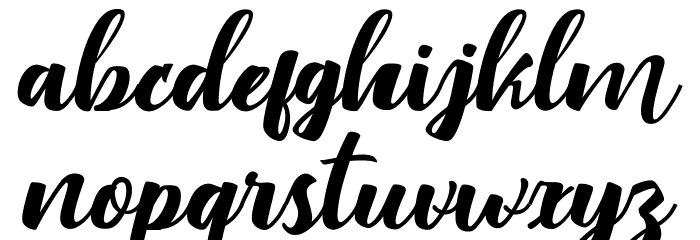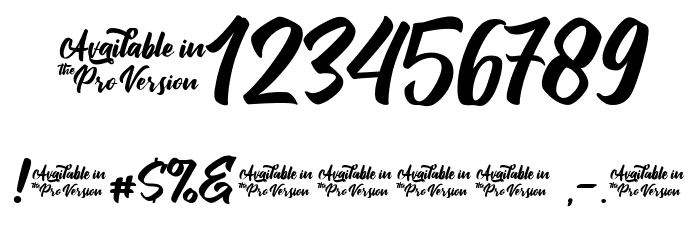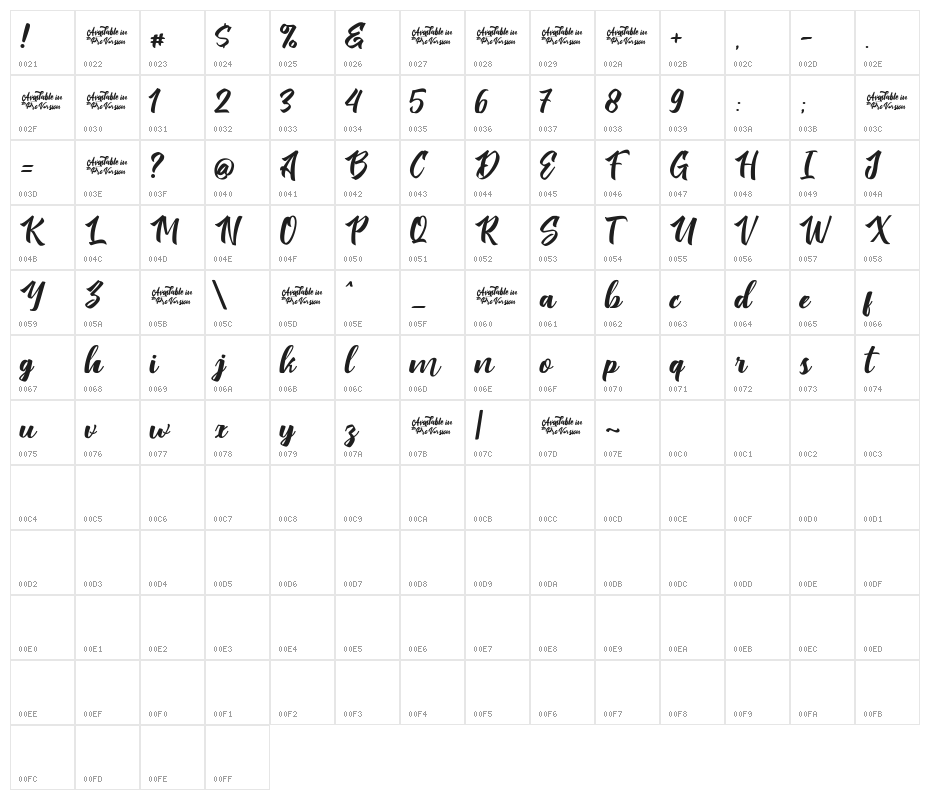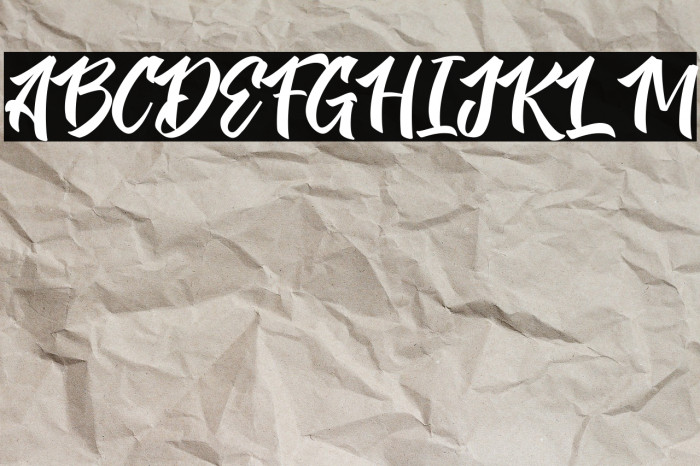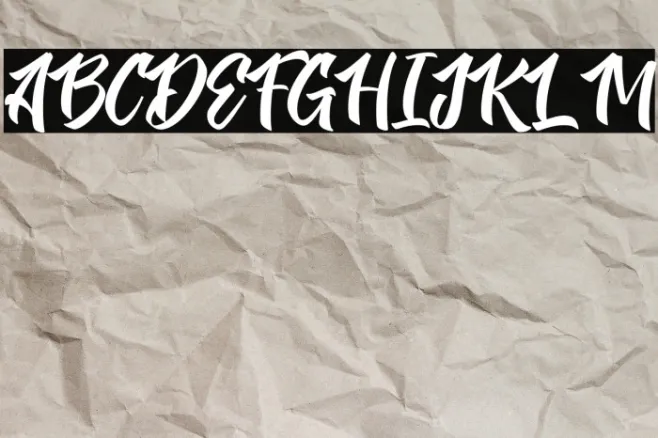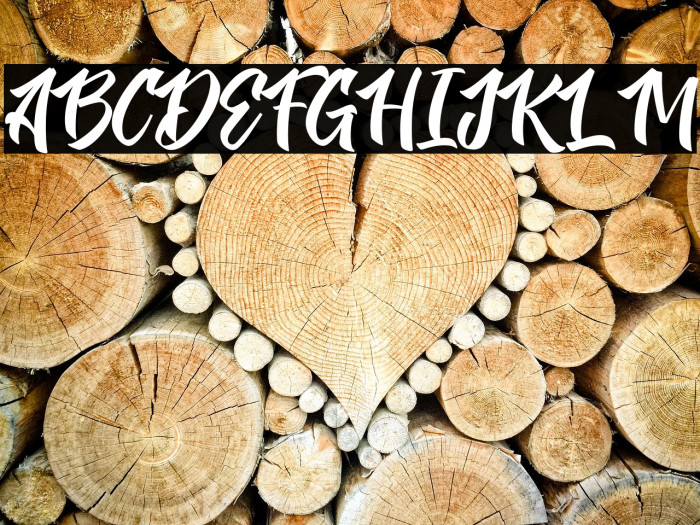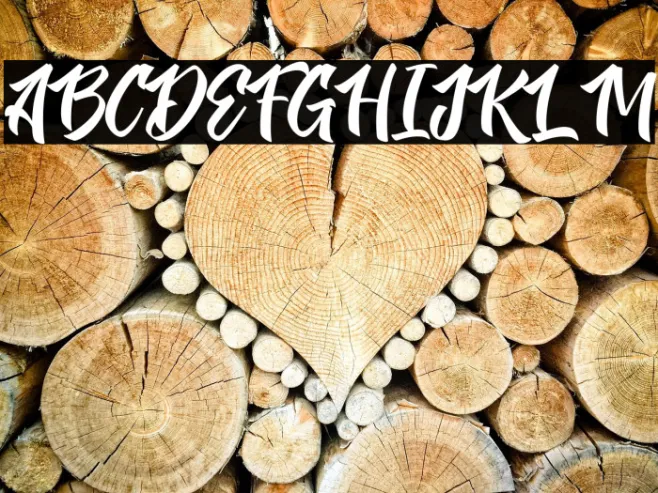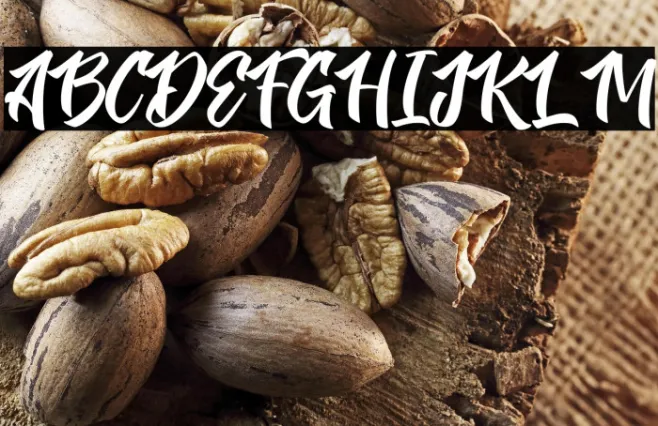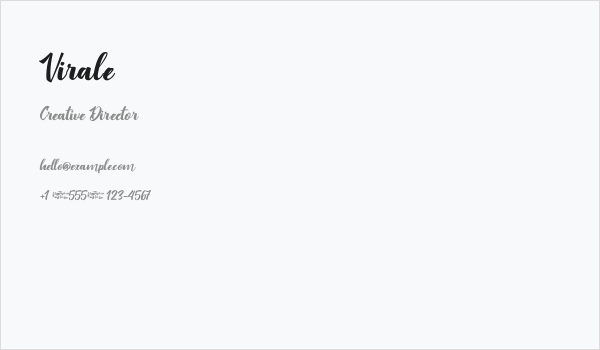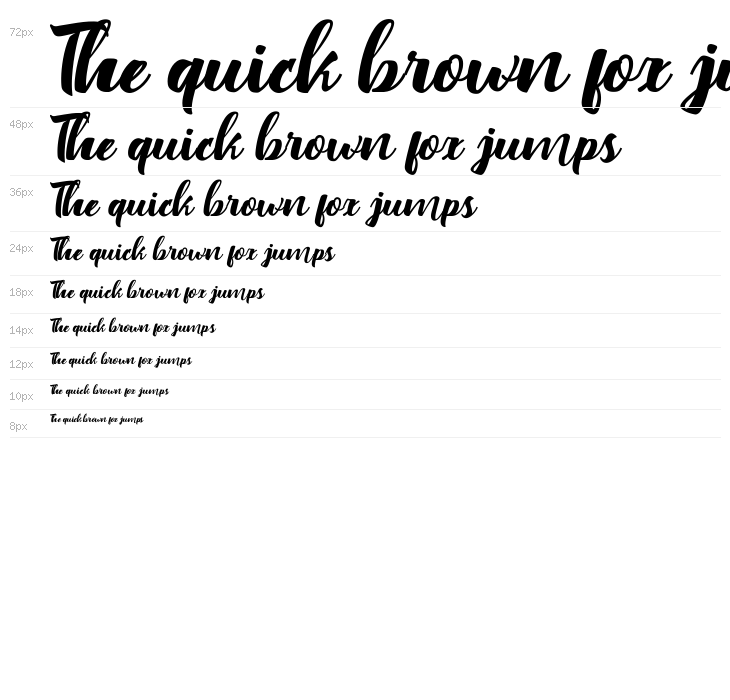
Virale Font
This font features a bold and expressive script style with a dynamic flow and a sense of movement. The uppercase letters are characterized by their dramatic strokes and sweeping curves, while the lowercase letters maintain a more consistent and fluid appearance. The numbers are equally bold, complementing the overall style. The special characters are designed to match the energetic and artistic feel of the font, making it suitable for creative and eye-catching designs. The font's brush-like texture adds a handcrafted touch, perfect for projects that require a personal and artistic flair.
A bold, expressive script font with dynamic strokes and a handcrafted feel.
- Font: Virale
- Proposed Projects: Ideal for branding, logos, invitations, posters, and any design requiring a personal and artistic touch.
- Category: Script
- Use Case: Logos, Headlines, Invitations